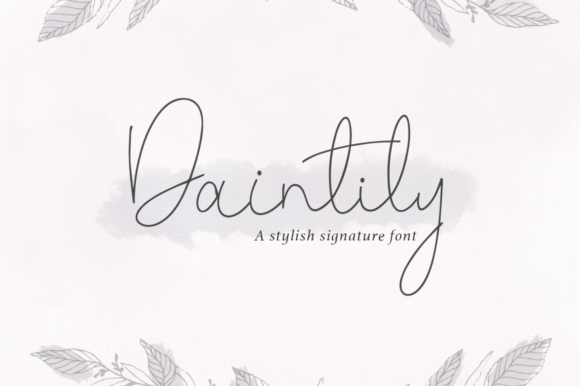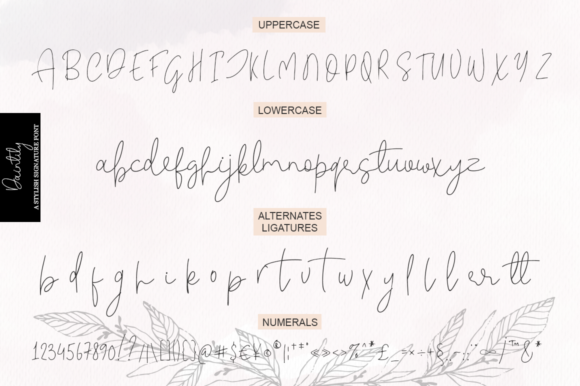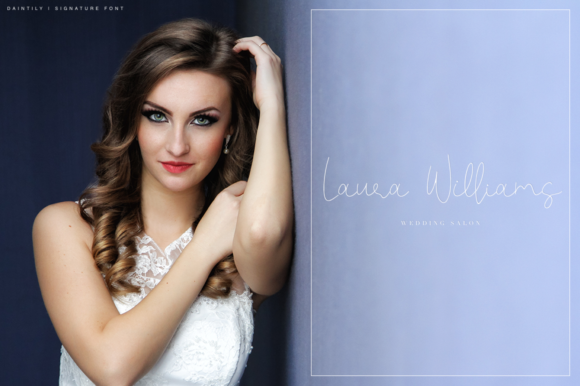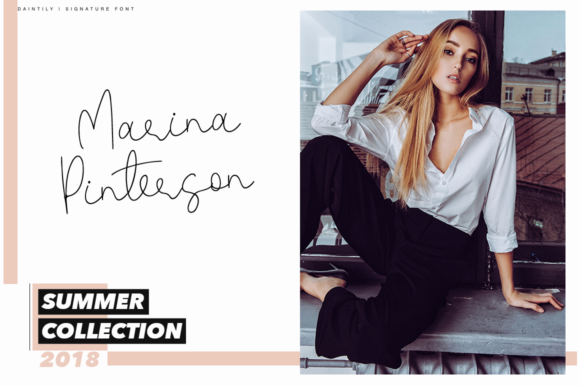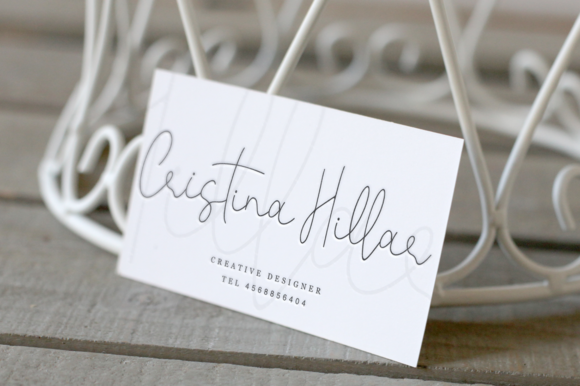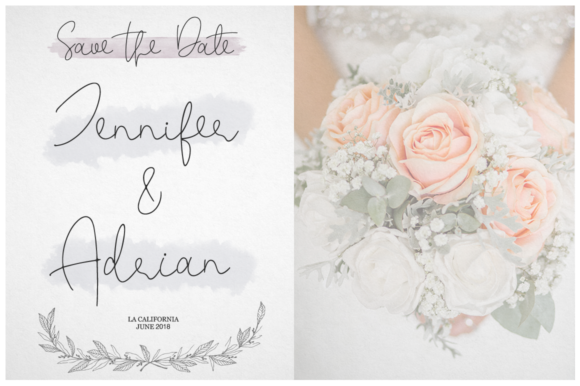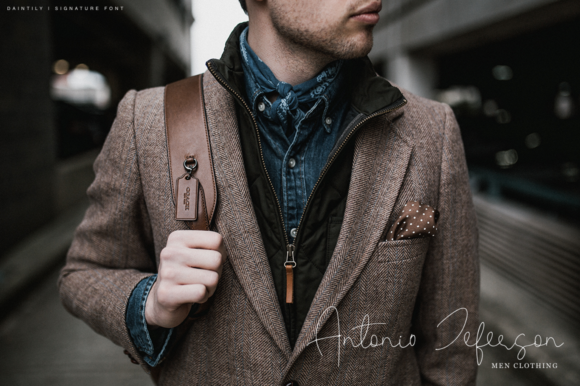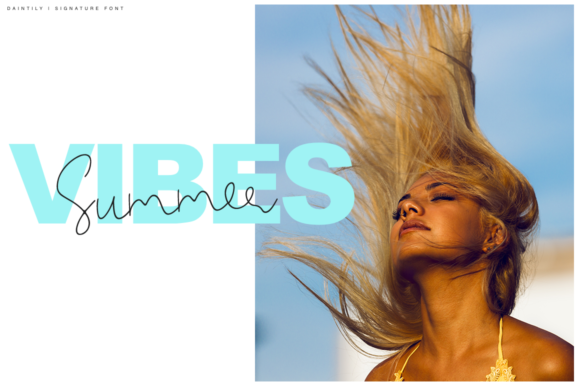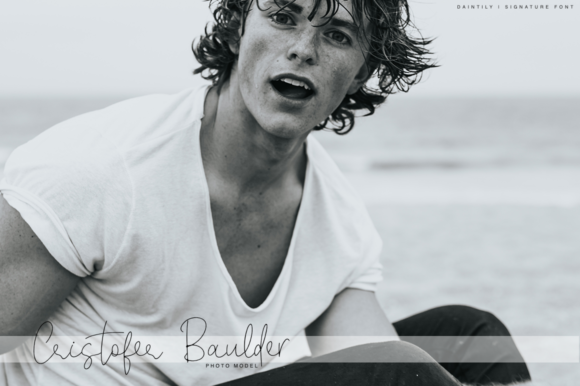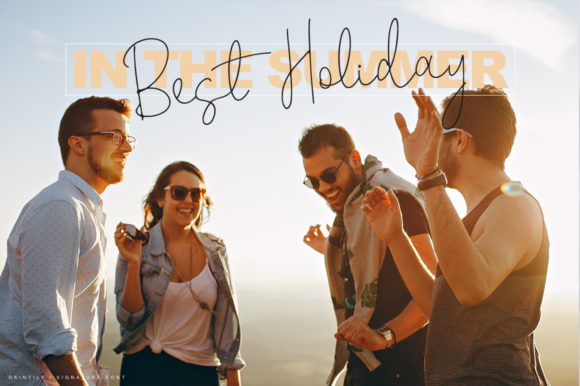
Daintily Font
About Daintily Font
Daintily is a dainty and feminine script font, perfect for use in fresh and fashionable designs. This font can add a beautiful framework to your designs, and works well in logotype and signature font projects.